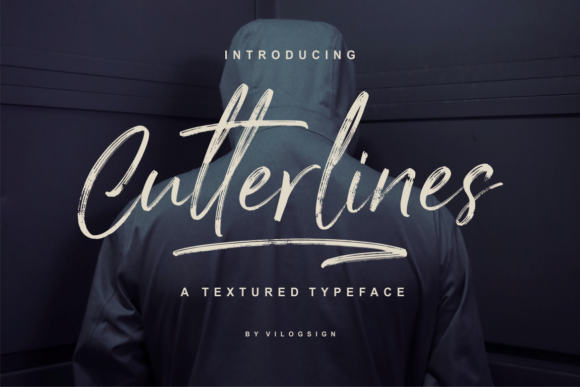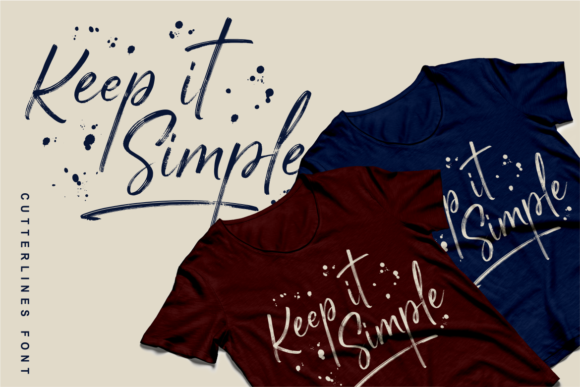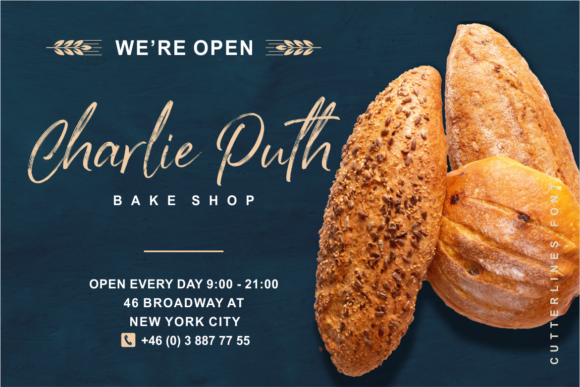
Cutterlines Font
Cutterlines is a textured brush handwritten font. It features a rustic style and brings cute rush vector extras and coffee vectors to brighten up all your crafting projects!
This font is perfectly suited for logos, branding, posters and much more!